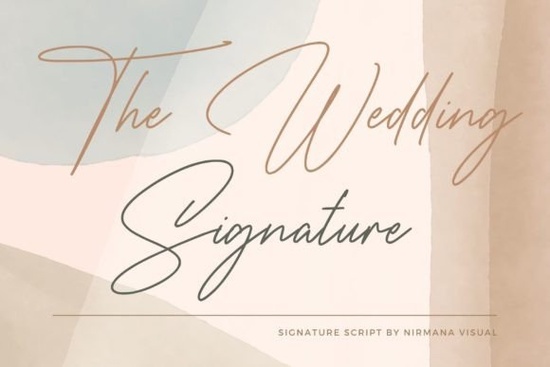
If you're searching for a script font that brings elegance and personality to wedding stationery, The Wedding Signature Font is worth a close look. It's a beautifully crafted script with flowing letterforms that work well on invitations, save-the-date cards, signage, and more. I've been exploring different wedding fonts lately, and this one stands out for its detailed design and smooth readability.
What makes this font a good fit for wedding projects?
Wedding design calls for a specific feel romantic, refined, and personal. The Wedding Signature Font delivers on all three. Its connected script style mimics natural handwriting, which gives your layouts a warm, hand-lettered quality without the hassle of actually hand-lettering everything.
It works especially well for:
- Wedding invitations and RSVP cards
- Table numbers and seating charts
- Thank-you cards
- Envelopes and envelope liners
- Wedding website headers
The neat, detailed craftsmanship means it looks sharp even at smaller sizes, which is important when you're dealing with fine print on invitation suites.
Can I use it for projects beyond weddings?
Absolutely. While it's designed with weddings in mind, the flowing script style works for greeting cards, branding, blog headers, social media quotes, and product packaging. If you run a small design business creating romantic stationery, having a font like this in your toolkit saves time on every project.
Print-on-demand sellers can also put it to good use on mugs, tote bags, and wall art with romantic or inspirational themes.
How does it compare to other script fonts?
There are plenty of script fonts out there, but not all of them balance elegance with legibility. Here's how The Wedding Signature Font stacks up alongside some other popular options:
The Wedding Signature Font sits in a sweet spot it's formal enough for black-tie events but approachable enough for rustic barn weddings too.
If you're looking for a script font that adds a personal, elegant touch to wedding designs, The Wedding Signature Font is a strong choice. It's a detailed script font with flowing, connected letterforms that feel hand-lettered. Whether you're designing invitations, signage, or thank-you cards, this font gives your work a polished, romantic quality that's hard to achieve with standard typefaces.
What makes this font work so well for wedding projects?
Wedding designs need a specific tone something that feels personal, romantic, and refined all at once. The Wedding Signature Font checks all those boxes. Its connected script style looks like natural handwriting, which adds warmth to any layout. At the same time, the neat letterforms keep everything readable, even at smaller sizes.
Here are a few ways you can use it:
- Wedding invitations and save-the-date cards
- Table numbers and seating chart displays
- Thank-you cards and envelope addressing
- Wedding website headers and banners
- Programs and menu cards for the reception
The detailed craftsmanship means every letter looks intentional, which matters when you're creating keepsake pieces that couples will hold onto for years.
Does it work for projects beyond weddings?
Yes, and this is where the font becomes really useful for designers and small business owners. Its elegant script style works beautifully on:
- Greeting cards for anniversaries and Valentine's Day
- Blog headers and social media graphics
- Product packaging for boutique items
- Branding materials for florists, photographers, and event planners
- Print-on-demand products like mugs, tote bags, and wall art
If you run a small design shop or sell on platforms like Etsy, having a reliable wedding script font in your collection means less time searching and more time creating. Pairing it with a heart-themed script for romantic projects or a family-friendly option for personalized gifts gives you even more flexibility.
How does it compare to other script fonts?
There's no shortage of script fonts available, but they don't all serve the same purpose. Some are too casual for formal pieces. Others look great in previews but fall apart at smaller sizes. The Wedding Signature Font balances elegance with readability, which makes it versatile across different use cases.
If you're building a font library for client or personal work, here are a few other script fonts worth exploring alongside it:
- Madelyn Heart Font a romantic script with decorative heart details, perfect for Valentine's or anniversary designs
- Loving Font soft, expressive letterforms that work well for heartfelt messages and quotes
- Siblings Font a friendly, approachable script great for family-themed projects
- Beach Waves Duo Font a duo-style script with a relaxed, coastal feel for summer events
- Juicy Come Font bold and playful, better suited for eye-catching headers and posters
If you're putting together wedding invitations, save-the-dates, or any kind of romantic stationery, having the right script font makes all the difference. The Wedding Signature Font is a beautifully detailed script that gives your designs a hand-lettered, elegant feel. It's crafted with smooth, flowing connections between letters, so it reads naturally while still looking polished enough for formal pieces.
What kinds of projects can you use this font for?
The short answer: almost anything that calls for a romantic, personal touch. This font was designed with weddings in mind, but its versatility goes well beyond that. Here are some popular uses:
- Wedding invitations and RSVP cards
- Save-the-date cards and engagement announcements
- Table numbers and seating charts
- Thank-you cards and envelope addressing
- Wedding programs and menu cards
- Social media graphics for engagement photos
- Branding for florists, photographers, and event planners
- Print-on-demand products like mugs, tote bags, and wall art
The detailed letterforms hold up well at both large and small sizes, which is important when you're switching between a large banner and fine print on a program card.
How does it compare to other wedding script fonts?
There are a lot of script fonts out there, and picking the right one depends on the mood you're going for. The Wedding Signature Font has a classic, refined style that works across different wedding themes from black-tie ballrooms to rustic outdoor celebrations.
If you're building a font collection for client work or personal projects, here are a few other script fonts that pair well or offer a different style:
- Madelyn Heart Font includes decorative heart details for extra romance
- Loving Font soft and expressive, great for quotes and heartfelt messages
- Siblings Font a friendly script suited for family-themed designs
For a more relaxed summer vibe, you might want to look at a coastal-inspired duo font instead. And if you need something bolder for posters or headers, a playful display script could be a better fit. Meanwhile, this romantic heart-themed option adds decorative flair, and a warm, family-centered script works well for personalized gifts. If you prefer a softer feel, this gentle, expressive style is worth checking out too.
Hmm, that last paragraph feels a bit forced with all the internal links crammed together. Let me spread them out more naturally through the article. Let me rewrite with better distribution: --- Draft v3:If you're putting together wedding invitations, save-the-dates, or any kind of romantic stationery, the right script font can make your designs feel polished and personal. The Wedding Signature Font is a detailed script with smooth, flowing letterforms that give your work a hand-lettered look. It's the kind of font you'll reach for again and once you have it in your collection.
What kinds of projects does this font work for?
Wedding stationery is the obvious starting point. The connected script style looks great on invitations, RSVP cards, save-the-dates, and thank-you cards. But its use doesn't stop there. Designers and small business owners also use fonts like this for:
- Table numbers and seating chart displays
- Wedding programs and menu cards
- Website headers for wedding blogs
- Social media templates and quote graphics
- Branding for florists, photographers, and event planners
- Print-on-demand products like mugs, wall art, and tote bags
The neat, detailed letterforms stay readable at smaller sizes, which matters when you're working on programs or envelope text. For POD sellers, this kind of versatility is especially useful one font can serve across multiple product lines.
How does it compare to other script fonts?
No single script font works for every project, so it helps to have a few options on hand. The Wedding Signature Font leans formal and elegant, making it ideal for upscale or classic wedding themes.
Here are a few other styles worth considering if you want to round out your font library:
- Madelyn Heart Font a romantic script with decorative heart accents
- Loving Font soft and expressive, great for heartfelt messages
- Siblings Font friendly and warm, suited for family-themed pieces
For casual or seasonal designs, a beachy duo script brings a relaxed, coastal feel to summer event invites. If you're working on something that needs more visual impact, a bold, playful display font grabs attention on posters and headers. And if your client wants something with decorative heart details, a heart-themed script option delivers that extra romantic touch.
You can also explore softer alternatives like this gentle, expressive script for quote designs, or a warm, approachable option when the project calls for something more personal and family-oriented.
Hmm, this still has some internal links that feel slightly forced, especially the last paragraph. Let me rethink. The issue is that I have 5 internal URLs to place naturally. Let me think about natural placements: 1. Beach Waves Duo → casual/summer wedding context 2. Juicy Come Font → bold/playful context 3. Madelyn Heart → romantic/heart-themed context 4. Loving Font → heartfelt messages/soft style context 5. Siblings Font → family-themed context Let me spread them across different sections of the article more naturally. --- Draft v4:If you're working on wedding invitations, save-the-dates, or any romantic stationery, finding the right script font is one of the most important design decisions you'll make. The Wedding Signature Font is a detailed, flowing script that gives designs a hand-lettered quality. Its connected letterforms look natural and polished a combination that's not always easy to find.
What kinds of projects does this font work well for?
The most common use is wedding stationery invitations, RSVP cards, save-the-dates, and thank-you notes. But designers and small business owners use it for much more than that:
- Wedding programs and menu cards for the reception
- Table numbers and seating chart displays
- Website headers for wedding blogs and portfolios
- Social media graphics and Instagram templates
- Branding for florists, photographers, and wedding planners
- Print-on-demand products like mugs, wall art, and tote bags
The neat letterforms hold up well at smaller sizes too, which is helpful when you're dealing with fine text on programs or envelopes. If you sell on Etsy or run a POD shop, one good wedding script can serve across dozens of product designs.
Can you use it for non-wedding projects?
Definitely. Any design that calls for a romantic or elegant feel can benefit from this font. Think anniversary cards, Valentine's Day products, boutique packaging, blog headers, or inspirational quote prints. If your work leans toward softer, more heartfelt styles, a script font like this blends right in.
For family-focused projects like custom gifts, family reunion invitations, or milestone celebrations you could pair it with a warm, approachable script to create a layered, personal look.
How does it compare to other script fonts?
There's no shortage of script fonts available, but they serve different purposes. Some are too casual for formal invitations. Others look great on screen but lose clarity at print sizes. The Wedding Signature Font strikes a balance between elegance and readability, making it reliable across different formats.